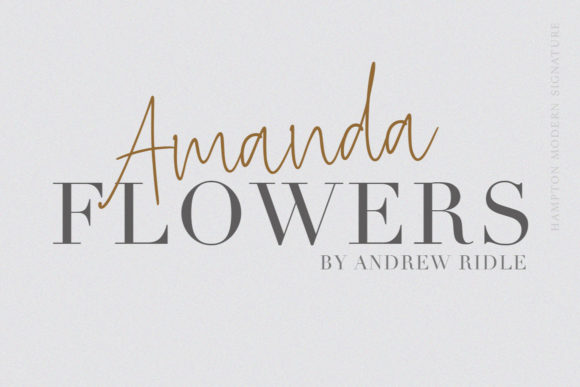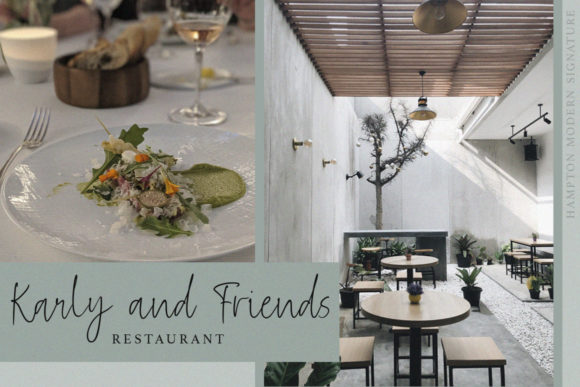
Hampton Font
db-ku.com - Script & Handwritten -- Hampton is a cursive, stylish and thin lettered handwritten font. Whatever the topic, this font will be a wonderful asset to your font library, as it has the potential to enhance any creation.